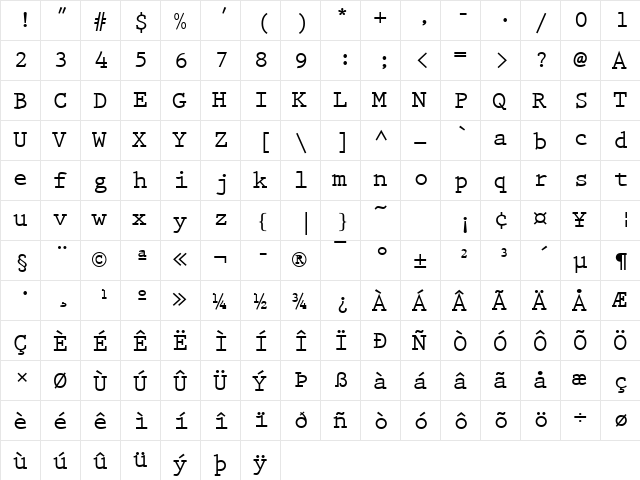
Prestige Becker Bold
Design Context for Prestige Becker Typeface
Prestige Becker offers clean, dependable letterforms without strong stylistic allegiance, making it a practical choice for designers who need flexibility. Its bold stroke weight gives it real presence on the page.